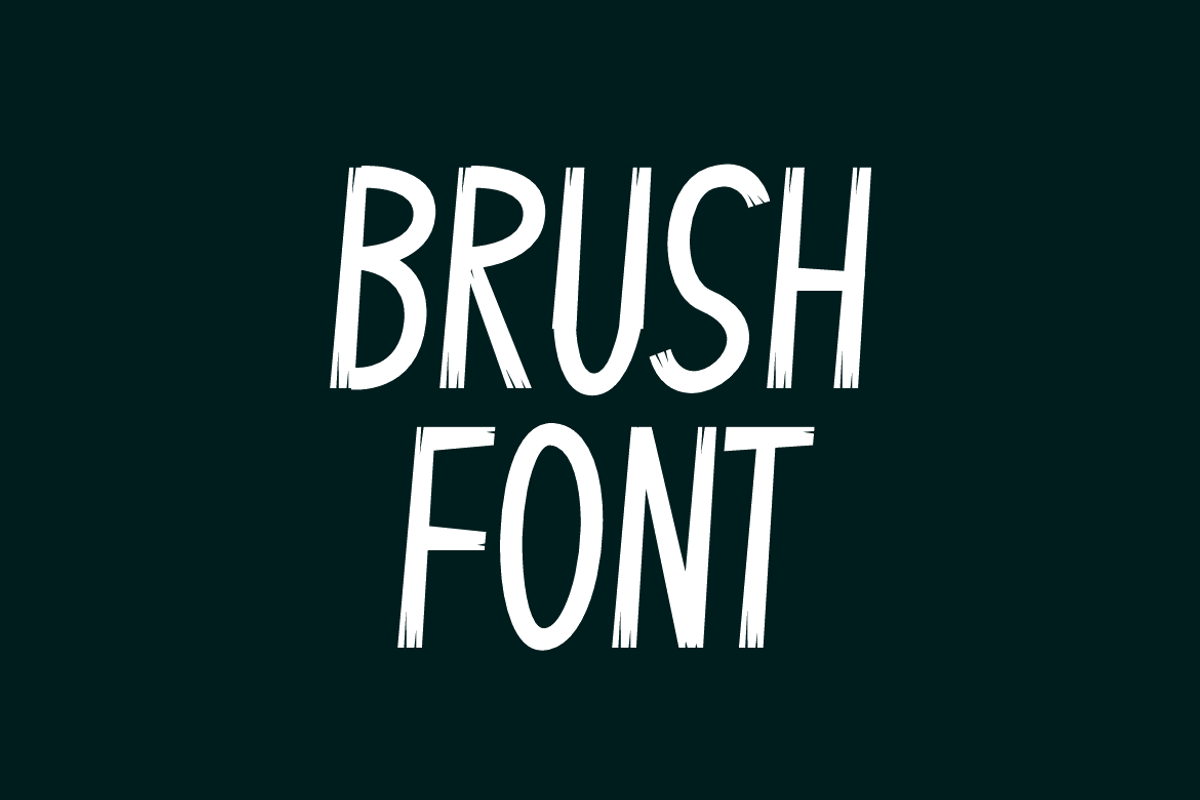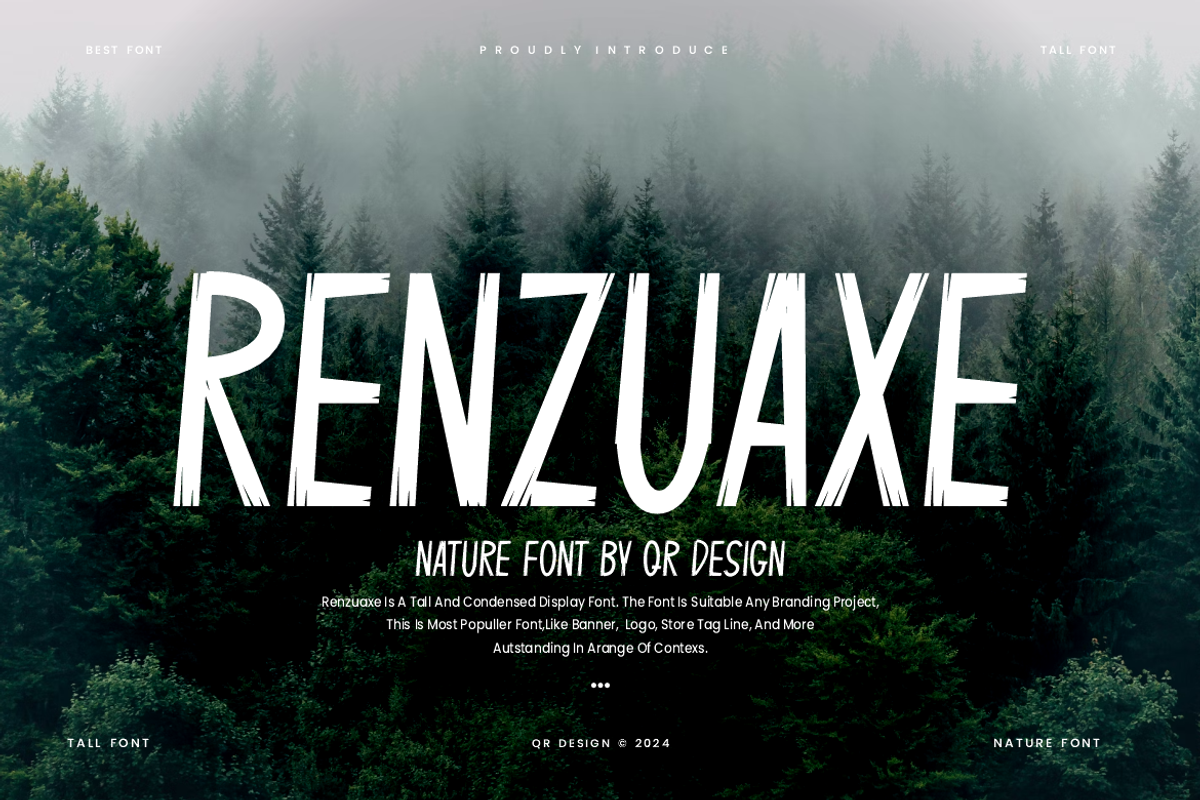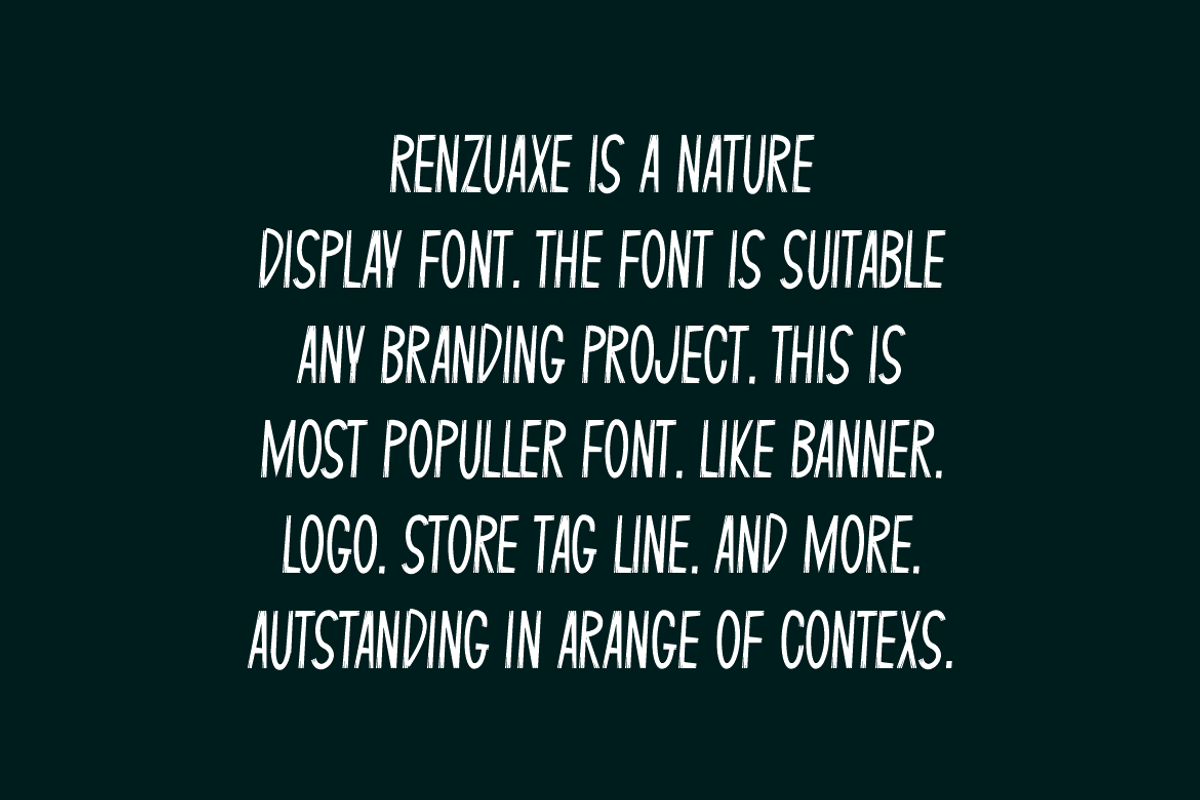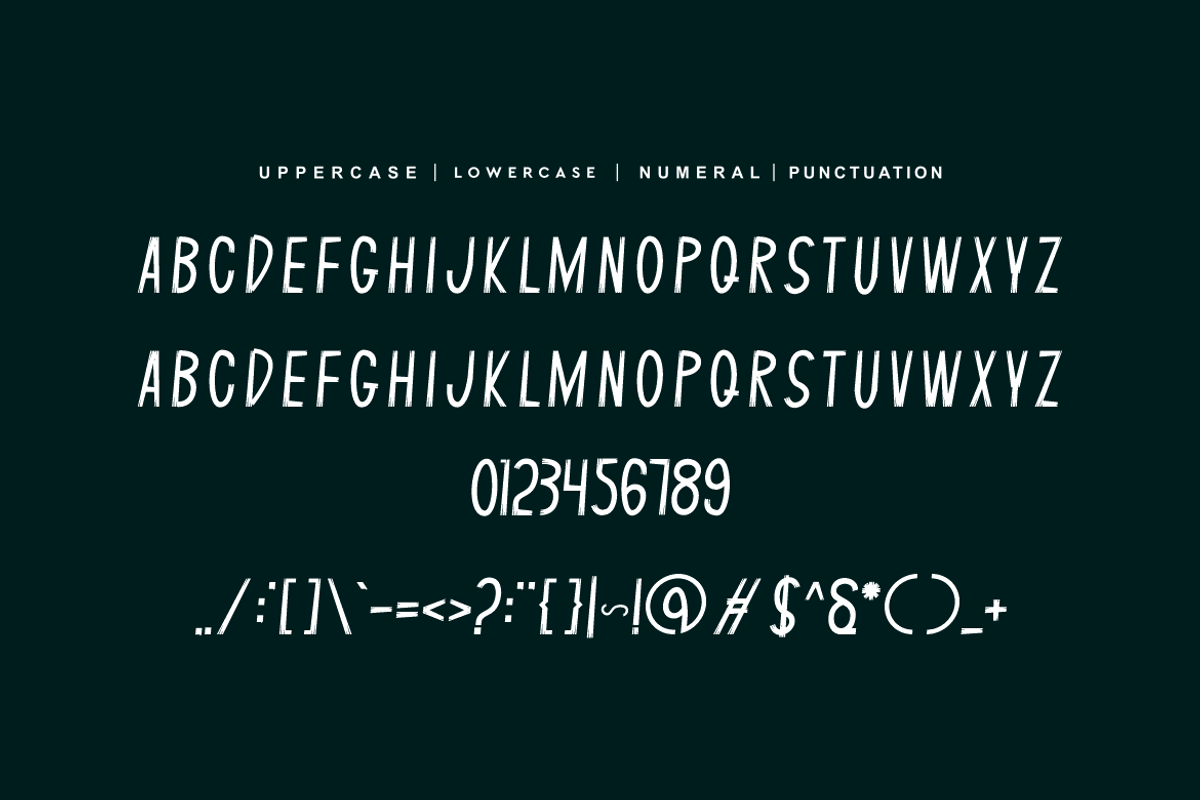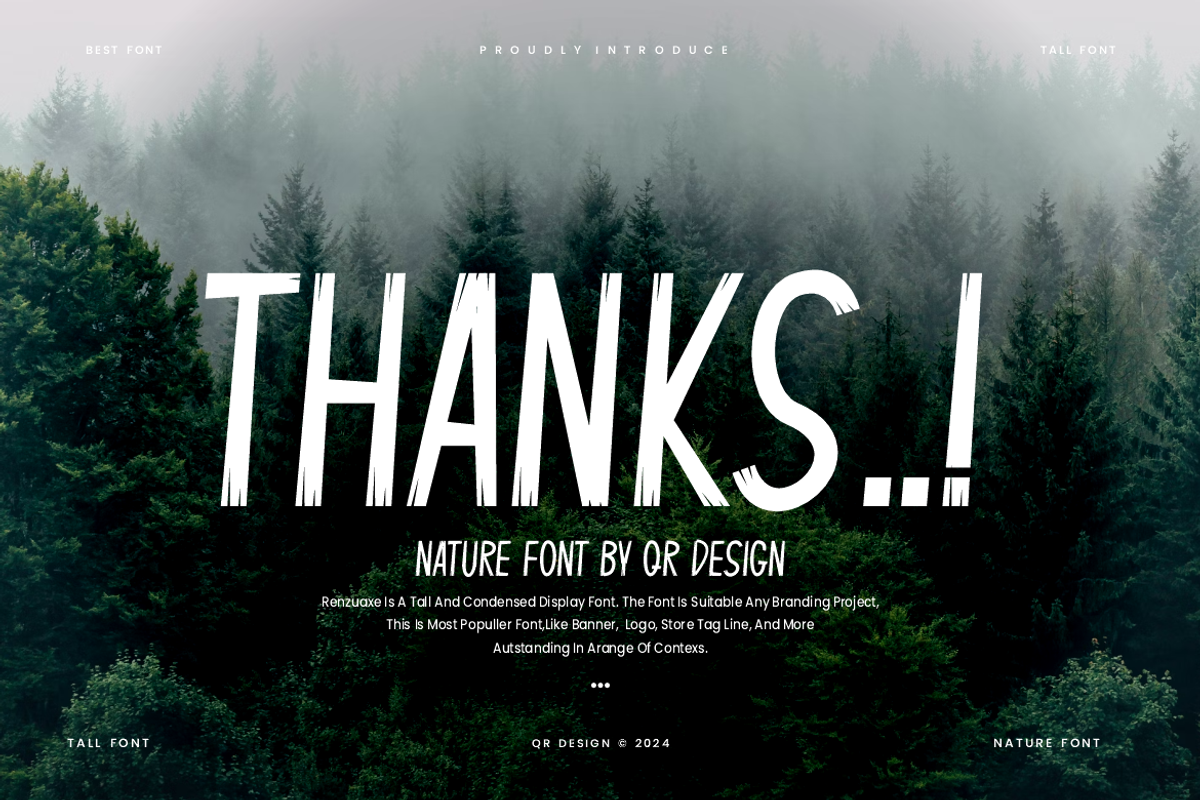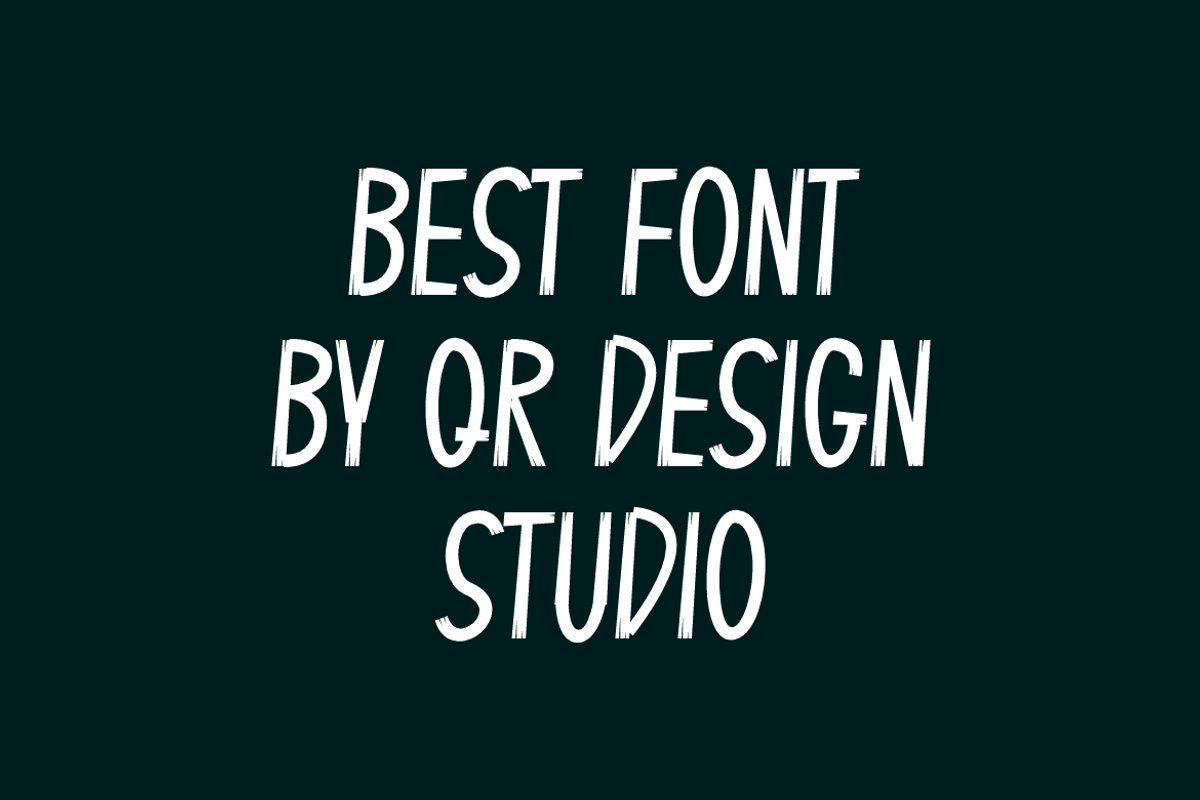
Renzuaxe - Nature Font
Renzuaxe Font is a nature and authentic display font. The font is suitable for any branding project like poster, logo, sport, and many more. Outstanding in a wide range of contexts.